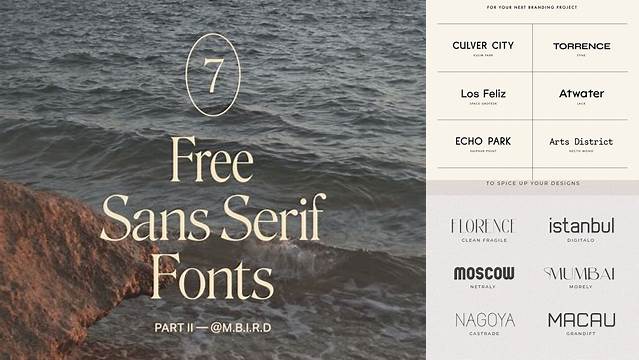
Free Sans Serif Fonts: Download Now!
Let's dive into the world of sans serif fonts download free, guys! Finding the perfect font can be a game-changer for your design projects, whether it's for a website, presentation, or even a cool poster. We're going to explore a bunch of options where you can snag these fonts without spending a dime. Get ready to level up your typography game!
Why Choose Sans Serif Fonts?
Sans serif fonts download free are super popular, and there's a good reason for it. Unlike serif fonts that have those little decorative strokes (serifs) at the end of each letter, sans serif fonts have clean, straightforward lines. This makes them incredibly readable, especially on screens. Think about it: when you're scrolling through a website or reading an article on your phone, those crisp, clear letters are usually sans serif. This modern look is ideal for everything from headlines to body text, and their versatility makes them a staple in graphic design. When you're looking to sans serif fonts download free, think about the project you're working on. Is it something that needs to look professional and clean? Or are you going for a more edgy and contemporary feel? The right sans serif font can totally transform the vibe of your design.
Popular Sans Serif Font Styles
Let's get into some specific styles when looking to sans serif fonts download free. You have geometric sans serif fonts, which are all about clean lines and perfect shapes. Think Futura or Montserrat. Then there are humanist sans serif fonts, like Gill Sans or Open Sans, which have a bit more warmth and personality. For something more modern and sleek, try a neo-grotesque font like Helvetica or Arial. Each style brings a different vibe to your design. Geometric fonts are great for a minimalist, tech-focused look, while humanist fonts add a touch of friendliness and approachability. Neo-grotesque fonts are your go-to for a classic, no-nonsense feel. Understanding these different styles will help you narrow down your search and find the perfect sans serif fonts download free to match your project's aesthetic.
How to Identify High-Quality Free Fonts
Not all sans serif fonts download free are created equal. It's important to know what to look for to ensure you're getting a high-quality font. Start by checking the font's character set. Does it include all the letters, numbers, and punctuation you need? Look for consistent letterforms and spacing. A well-designed font will have uniform stroke widths and balanced proportions. Pay attention to kerning, which is the spacing between individual letters. Poor kerning can make a font look unprofessional and difficult to read. Also, check if the font includes different weights and styles, such as bold, italic, and condensed versions. This versatility will give you more flexibility in your designs. Finally, read reviews and check the designer's reputation. A little bit of research can go a long way in ensuring you sans serif fonts download free that's both beautiful and functional.
Using Sans Serif Fonts in Web Design
In web design, sans serif fonts download free are your best friend. They're super readable on screens, making them perfect for body text and headlines. When choosing a font for your website, consider the overall tone and style you're trying to convey. A clean, modern sans serif font can give your site a professional and contemporary look. Make sure to choose a font that's easy to read at different sizes and on different devices. Responsiveness is key! Also, think about pairing your sans serif font with another font for contrast. A classic combination is a sans serif for the body text and a serif for the headlines, or vice versa. Tools like Google Fonts make it easy to embed free fonts directly into your website, so you can sans serif fonts download free and start using them right away. With the right font choices, you can create a website that's both visually appealing and user-friendly.
Sans Serif Fonts for Print Projects
While sans serif fonts download free are often associated with digital design, they're also fantastic for print projects. Whether you're designing a brochure, a poster, or even business cards, a well-chosen sans serif font can make a big impact. When selecting a font for print, consider the size and resolution of your design. A font that looks great on screen might not translate well to print if it's too thin or intricate. Opt for fonts with clear, legible letterforms that will hold up well when printed. Also, think about the overall aesthetic of your project. A bold, modern sans serif font can give your print materials a contemporary edge, while a more classic sans serif font can lend a touch of sophistication. With the right sans serif fonts download free, you can create print designs that are both stylish and effective.
Pairing Sans Serif Fonts Effectively
Sans serif fonts download free are awesome on their own, but pairing them with other fonts can take your design to the next level. The key is to create contrast while maintaining harmony. One popular approach is to pair a bold sans serif font with a lighter serif font. This combination provides visual interest and helps to create a clear hierarchy in your design. Another option is to pair two different styles of sans serif fonts. For example, you could use a geometric sans serif for headlines and a humanist sans serif for body text. Just make sure the two fonts complement each other and don't clash. Tools like Font Pair can help you find great font combinations that work well together. Experiment with different pairings until you find a combination that perfectly captures the tone and style of your project. With the right font pairings and finding sans serif fonts download free, you can create designs that are both visually appealing and easy to read.
Tips for Choosing the Right Font Weight
Choosing the right font weight is crucial when you sans serif fonts download free. Font weight refers to the thickness of the letters, ranging from thin to extra bold. The weight you choose can significantly impact the readability and visual impact of your design. For body text, it's generally best to stick with regular or medium weights. These weights are easy to read and won't strain the eyes. For headlines, you can experiment with bolder weights to create emphasis and draw attention. Just be careful not to go too heavy, as overly bold fonts can look cluttered and overwhelming. Also, consider the size of your text. Smaller text often looks better with a slightly heavier weight, while larger text can handle thinner weights. Experiment with different weights until you find the perfect balance that enhances the overall design. Finding sans serif fonts download free is only half the battle, choosing the weight is key!
Understanding Font Licensing for Free Fonts
Before you sans serif fonts download free and start using them, it's essential to understand font licensing. Even though a font is free, it doesn't necessarily mean you can use it for any purpose. Most free fonts come with a license that specifies how you can use them. Some fonts are free for personal use only, meaning you can't use them for commercial projects. Other fonts are licensed under open-source licenses, such as the SIL Open Font License (OFL), which allows you to use them for both personal and commercial purposes. Always read the license agreement carefully before using a font to ensure you're complying with the terms. If you're unsure about the licensing terms, it's best to err on the side of caution and choose a different font. Understanding font licensing is crucial to avoid any legal issues. When you sans serif fonts download free, make sure you're covered legally!
Open Source Sans Serif Font Options
Exploring open-source sans serif fonts download free is a fantastic way to access high-quality typography for your projects. Open-source fonts are typically licensed under the SIL Open Font License (OFL), granting you the freedom to use, modify, and distribute them, even for commercial purposes. Google Fonts is a treasure trove of open-source options, providing a wide range of styles and weights to suit any design. Font Squirrel is another excellent resource, curating a collection of fonts that are free for commercial use. By leveraging open-source options, you can ensure your projects are both visually appealing and legally compliant. The ability to sans serif fonts download free while maintaining full legal rights is a huge advantage for designers.